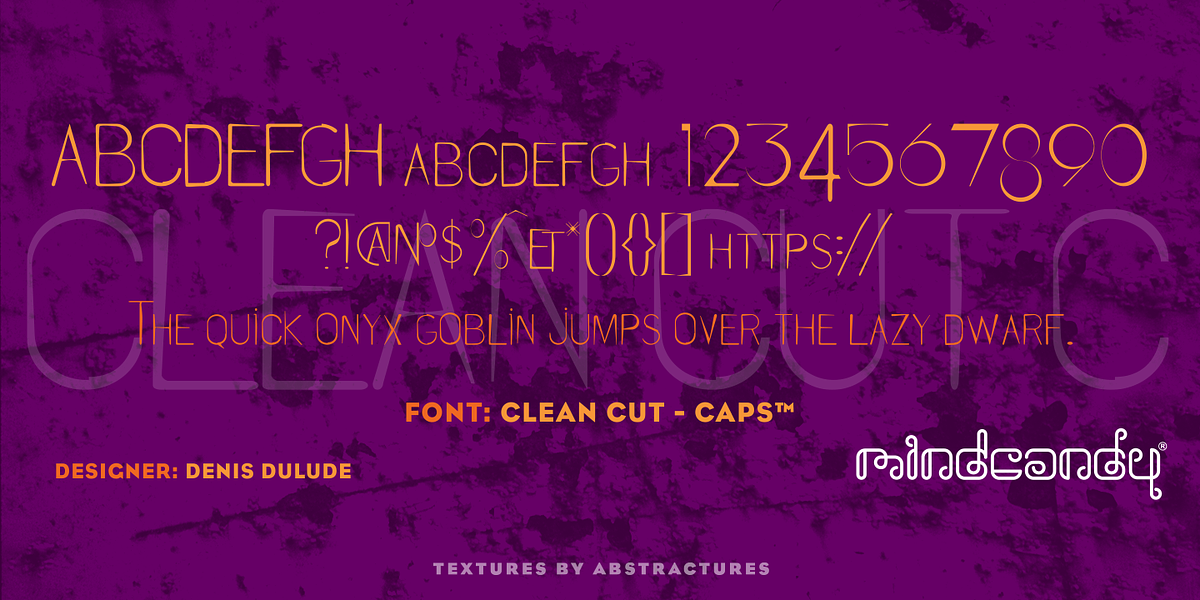
CleanCut™ Caps
This display font is characterized by its novelty and uneven letterforms, giving it a unique and quirky appearance. The inclusion of small caps further enhances its distinctiveness, making it suitable for eye-catching headlines, branding elements, and creative projects.